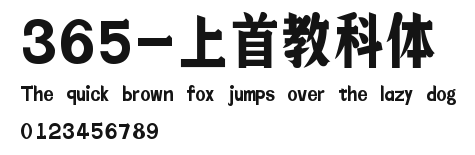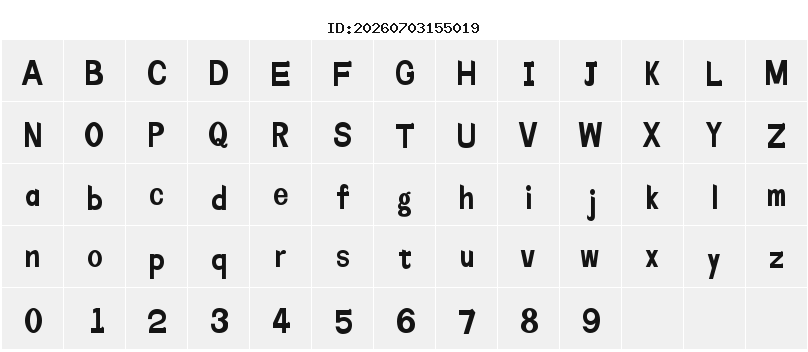
365-上首教科体 Preview
• Font Name: 365-上首教科体
• Full Font Name: 365-上首教科体
About 365-上首教科体.ttf
365-上首教科体.ttf is a modern, elegant sans-serif font designed for ultimate readability and visual harmony. Perfect for branding, headlines, web design, and print materials.